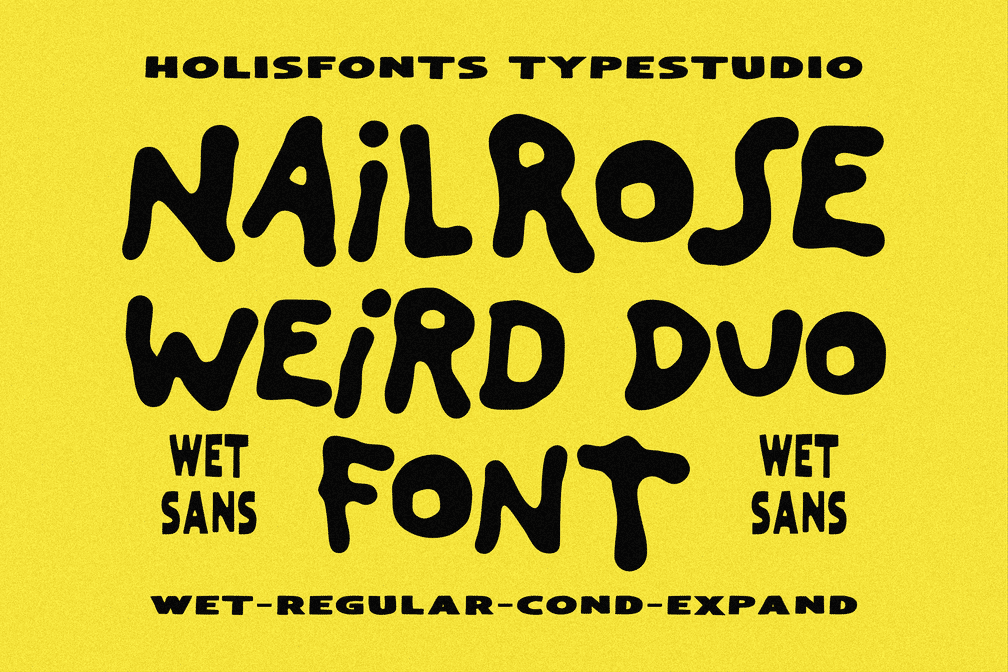
Nailrose Handmade Duo Font
fox nymphs grab quick jived waltz
Nailrose Wet is an experimental drip ink display font inspired by liquid paint and organic ink droplets. Each letter has a chaotic, irregular structure, creating a raw, spontaneous, and highly expressive look. The intentionally messy character shapes lend a handmade energy to each word, making it ideal for bold titles, album covers, street-inspired artwork, and unconventional branding.
To enhance its versatility, each character includes alternate glyphs, allowing designers to create more natural, varied, and custom-looking typographic compositions without repetitive letterforms.
Nailrose Sans is a handcrafted, entirely hand-drawn sans serif font. Built with an authentic handmade aesthetic, it balances simplicity and personality while maintaining excellent readability. All characters are designed in all-caps, giving the font a confident and distinctive visual identity.
This font family includes three styles:
• Regular – balanced and versatile
• Condensed – narrow and space-saving
• Expanded – wide and impactful
These variations make Nailrose Sans suitable for logos, packaging, editorial layouts, posters, branding systems, and modern craft designs.
Together, Nailrose Wet and Nailrose Sans create a versatile font duo that combines expressive artistic textures with clean, crafted typography, offering endless creative possibilities for designers looking to make a bold visual statement.